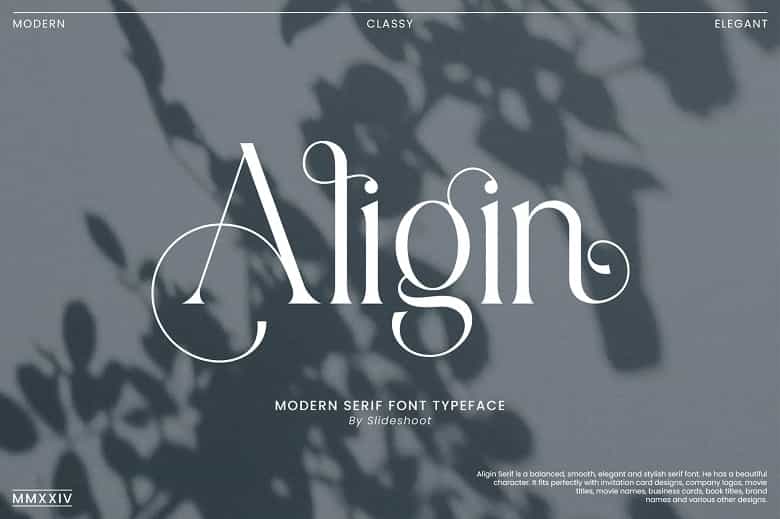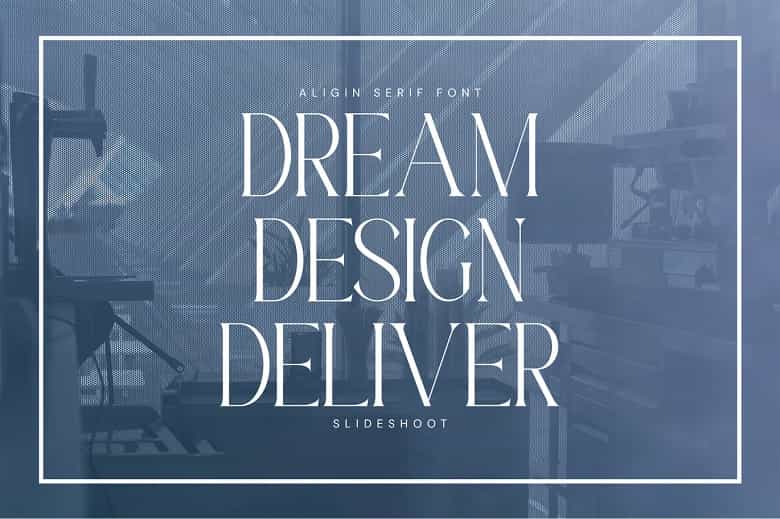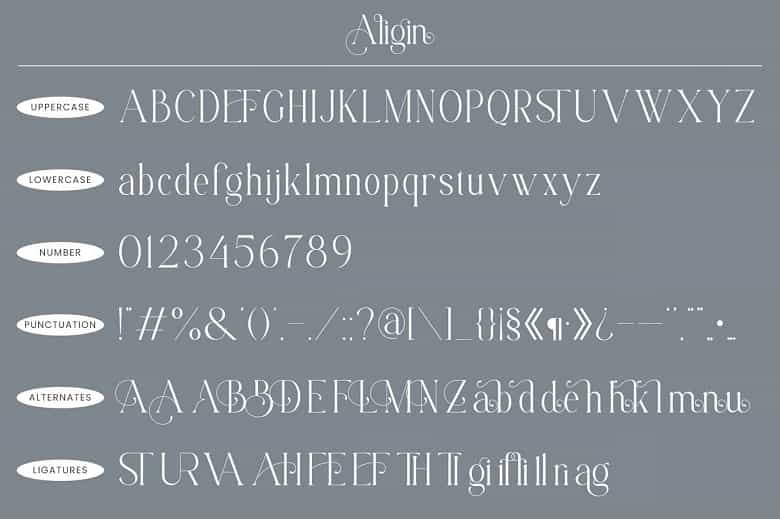
Aligin is a complete and round, flexible, graceful and elegant serif font. This sophisticated font has many pretty alternates and ligatures which can enhance any project. This package is great for using with invitation card templates, company logos, movie title and films name, business cards, book titles, brand name and other designs.